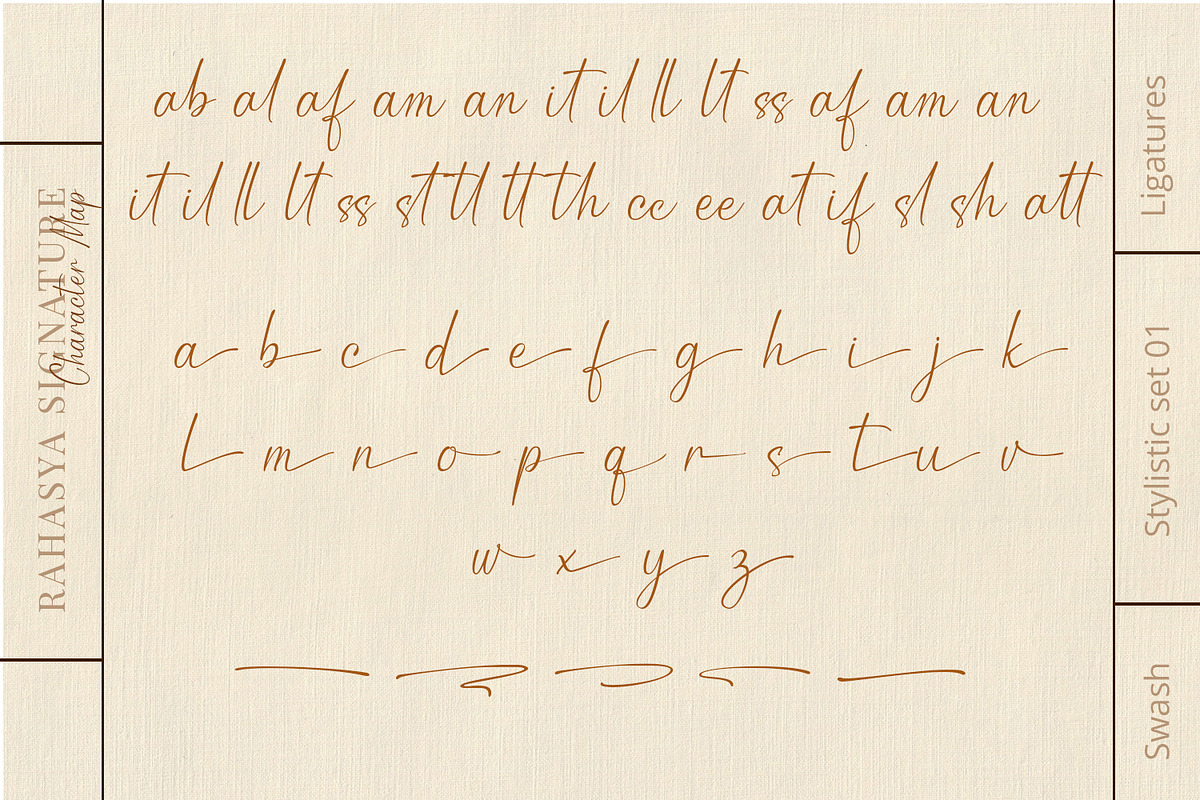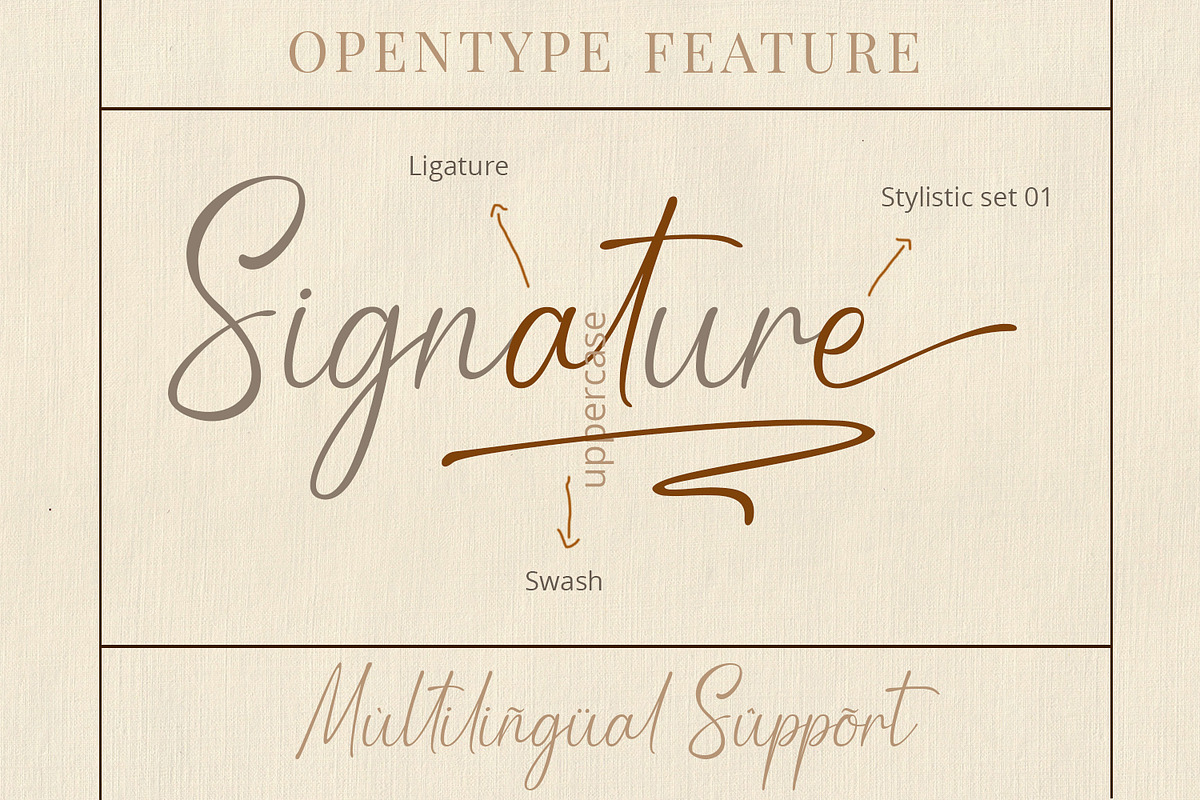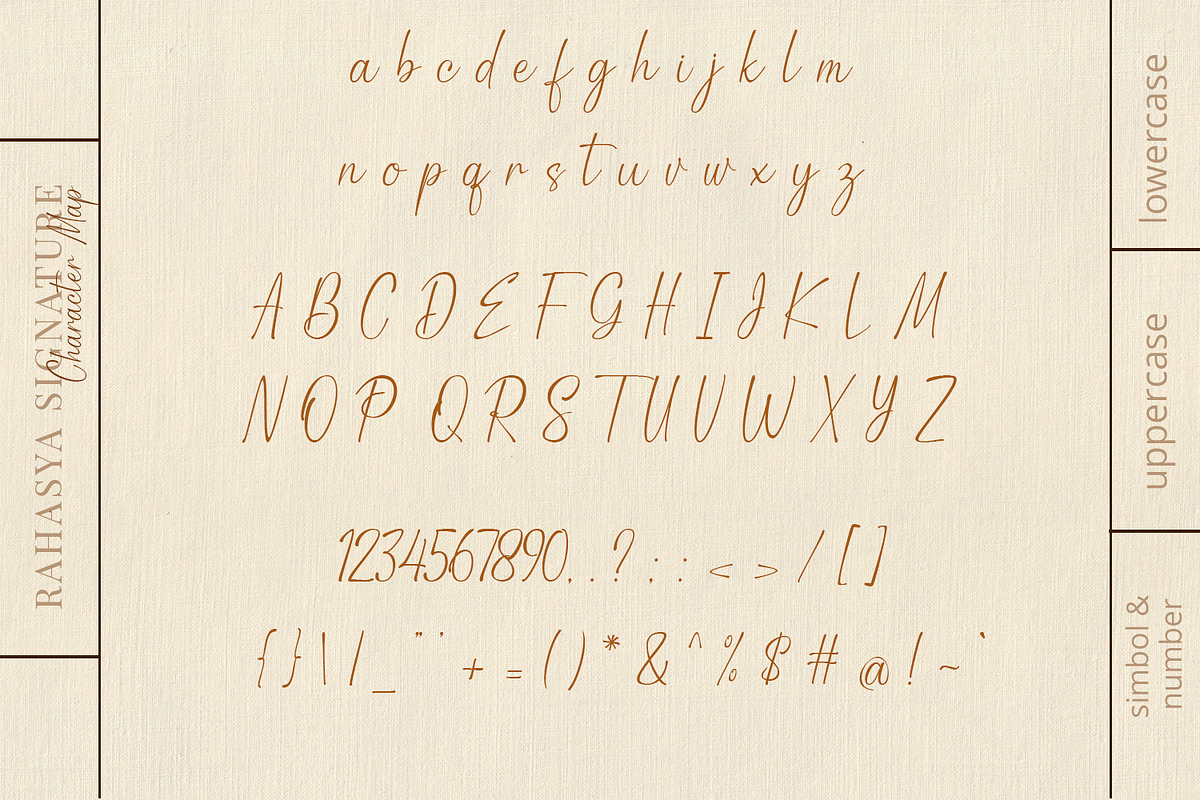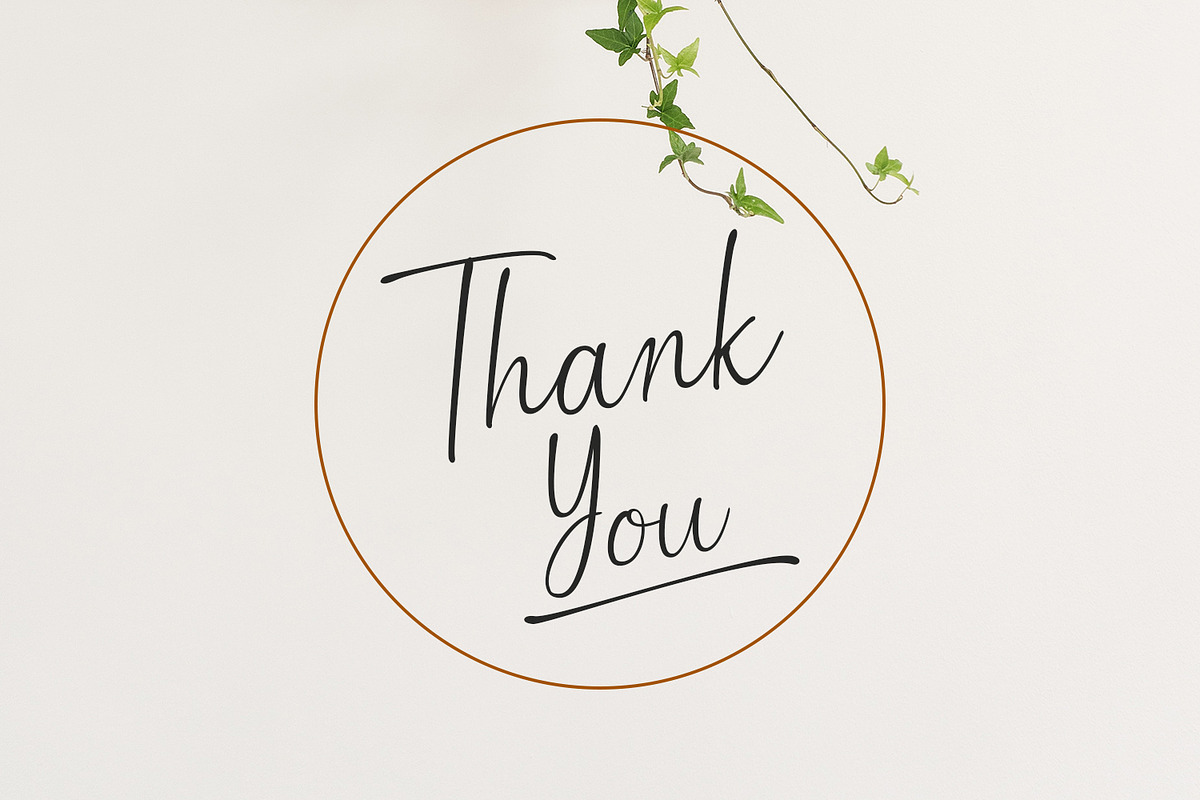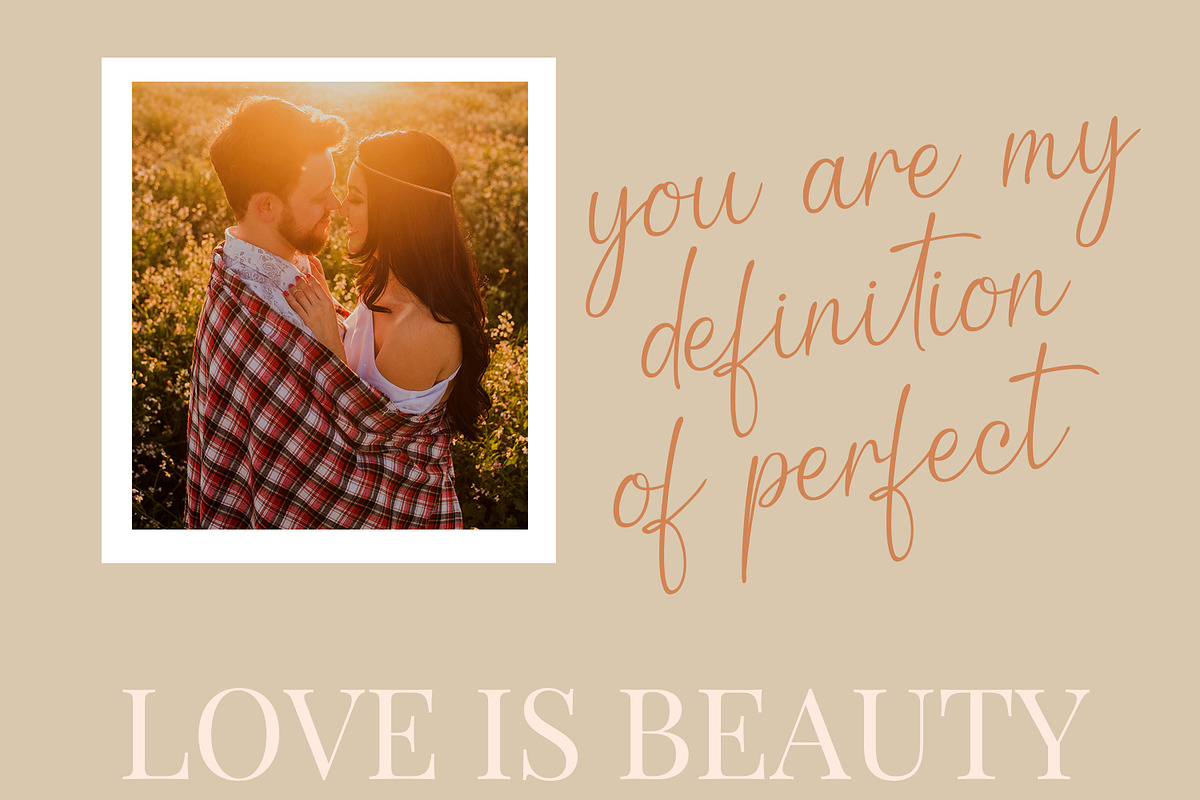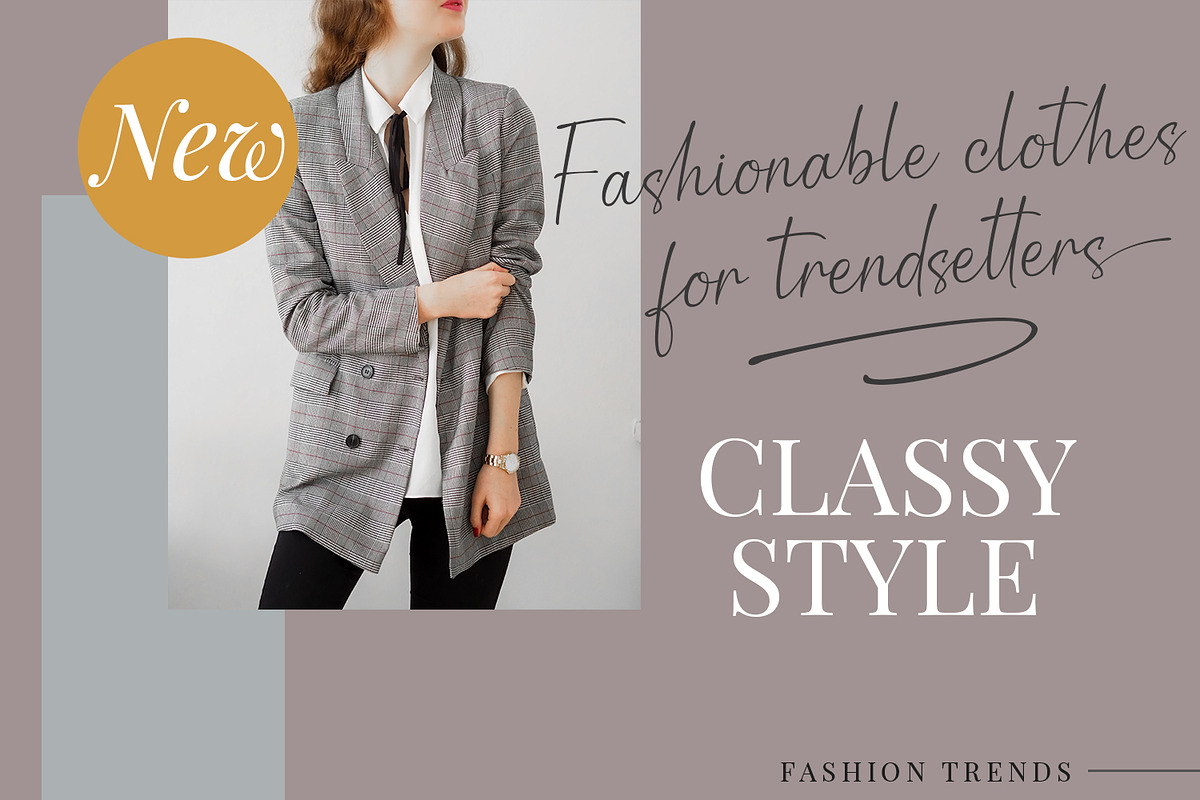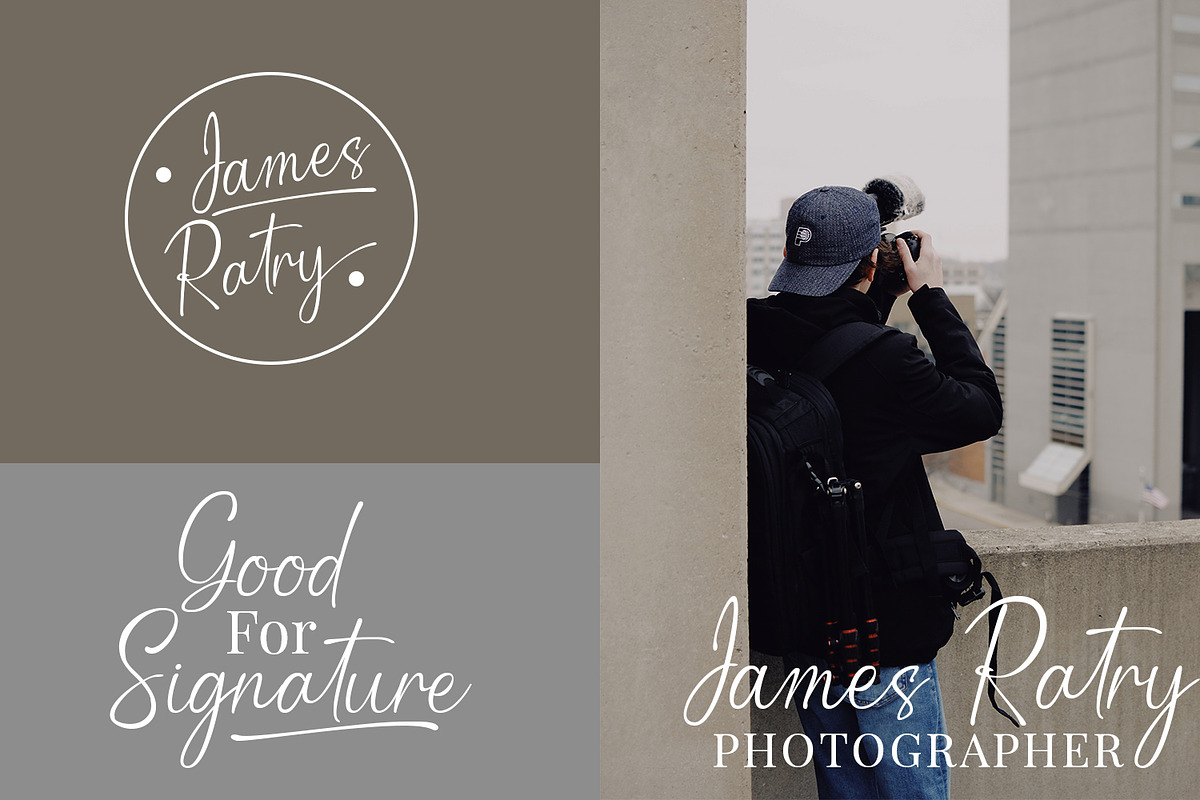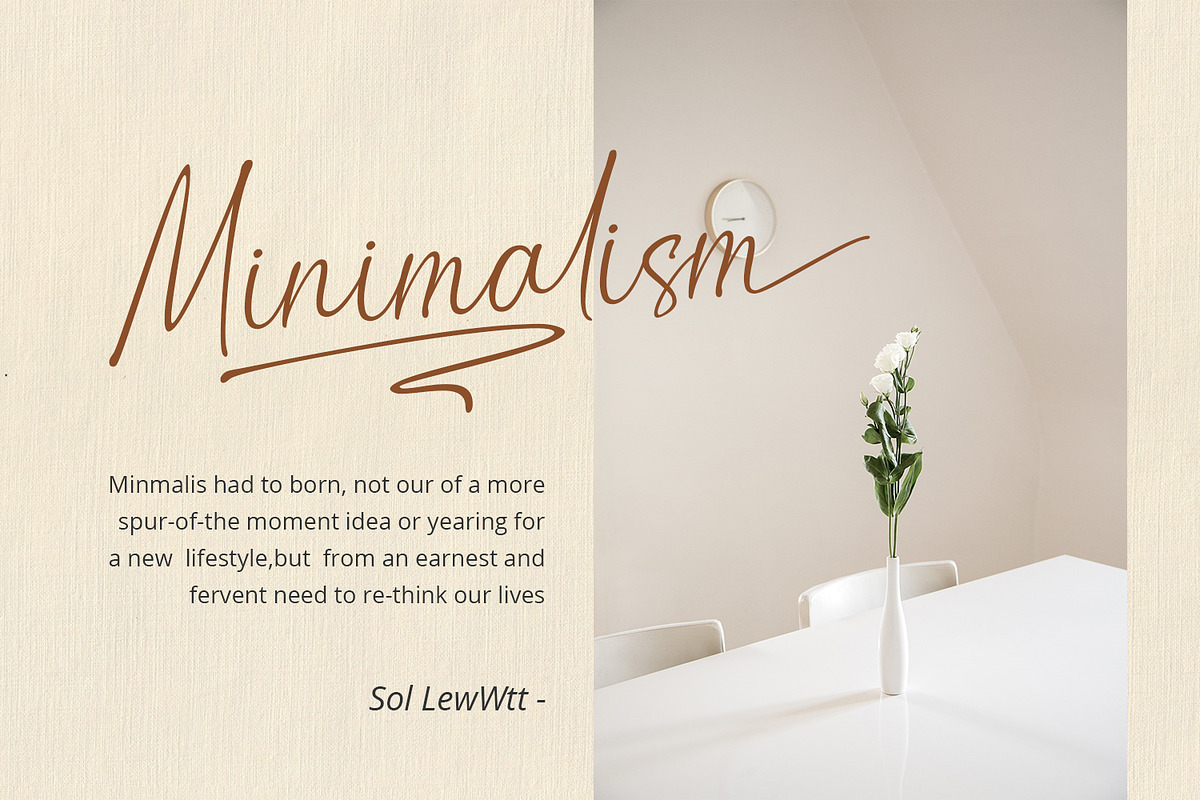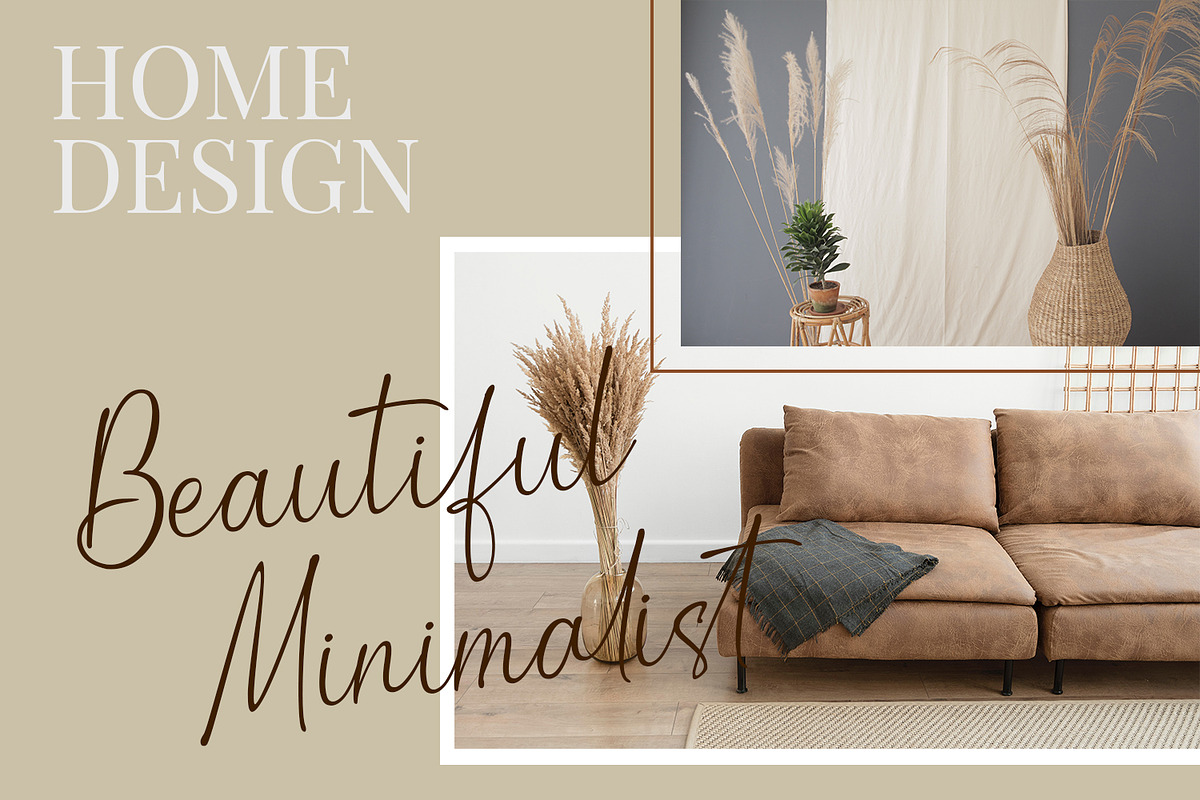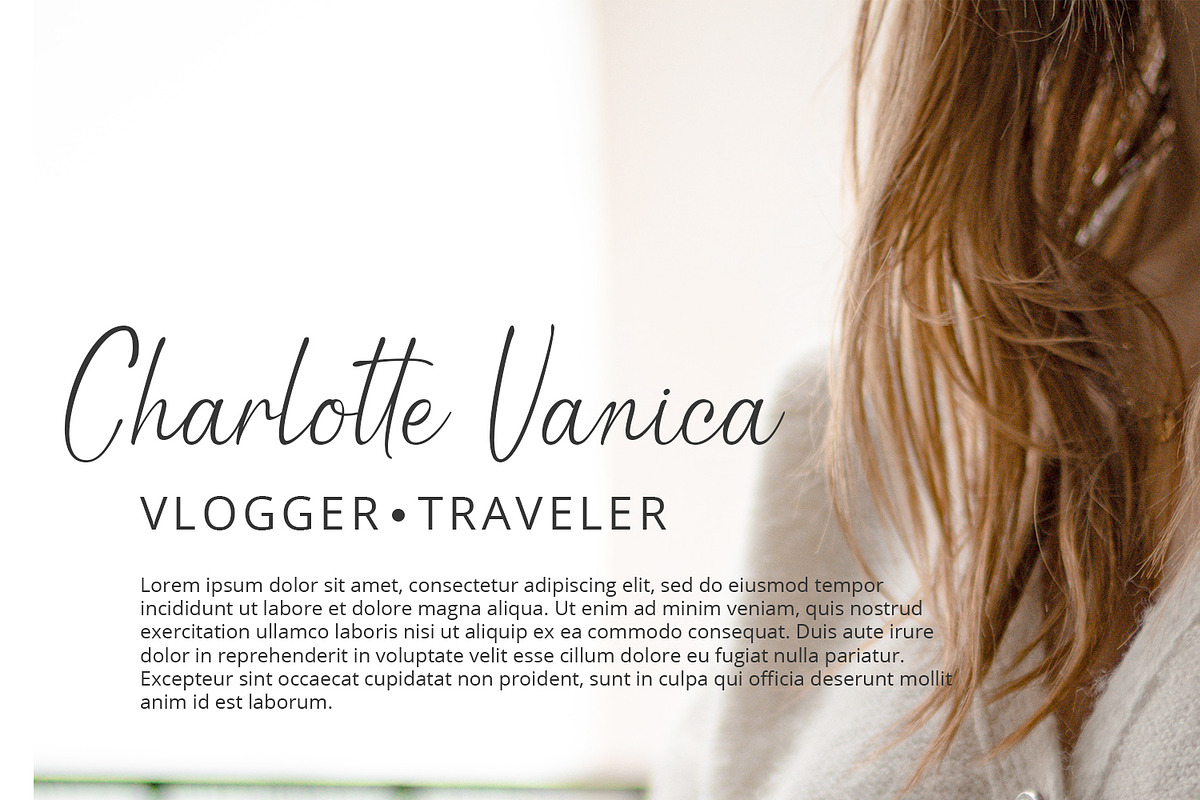
Rahasya Signature
Rahasya Signature is script collection font with natural movement make looks elegant, classy and beauty for your project. Rahasya Signature is perfect for branding projects, logo, wedding designs, social media posts, advertisements, product packaging, product designs, label, photography, watermark, invitation, stationery and any projects that need handwriting taste.